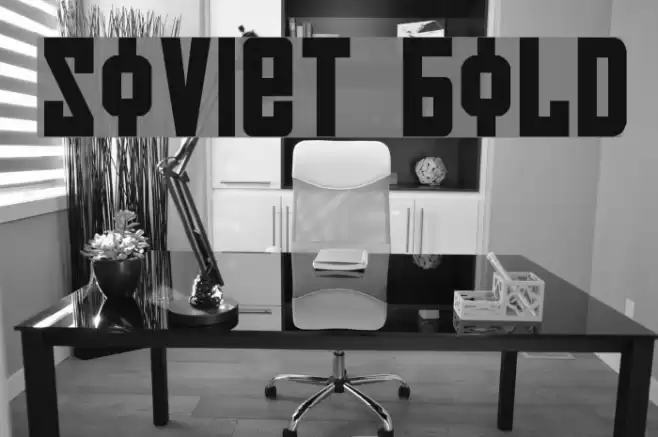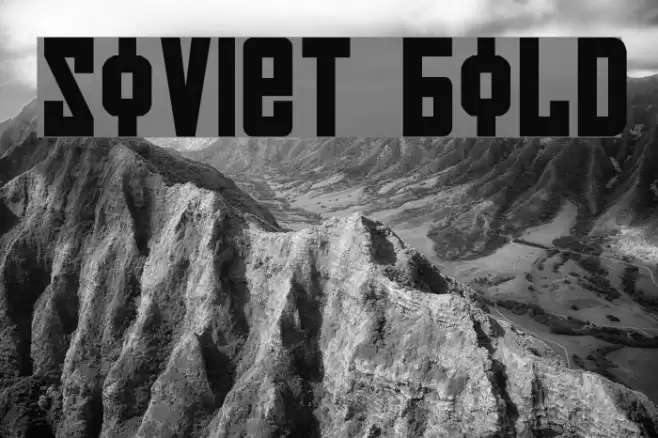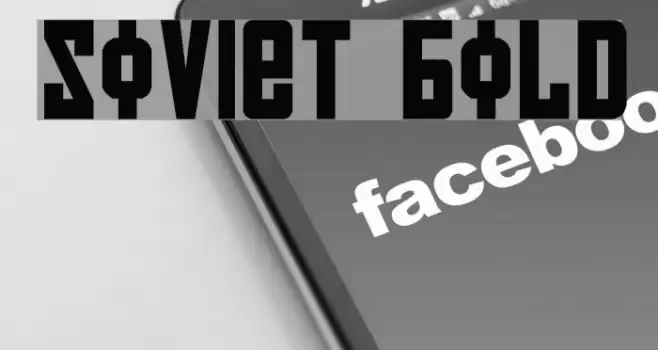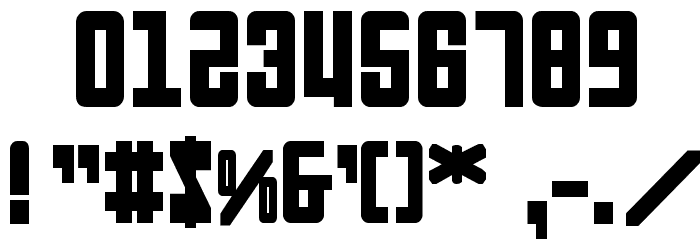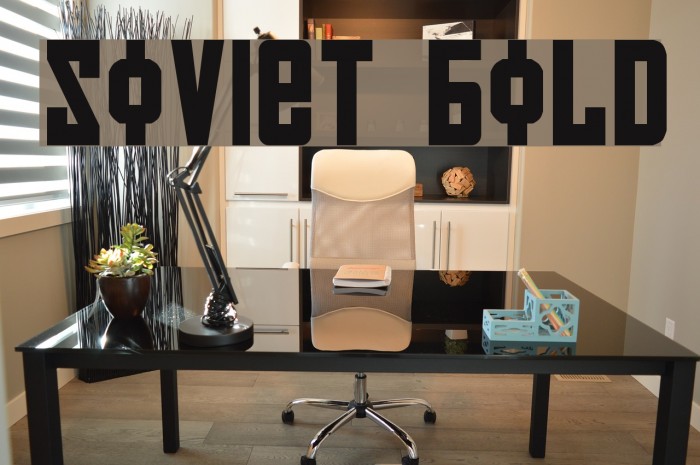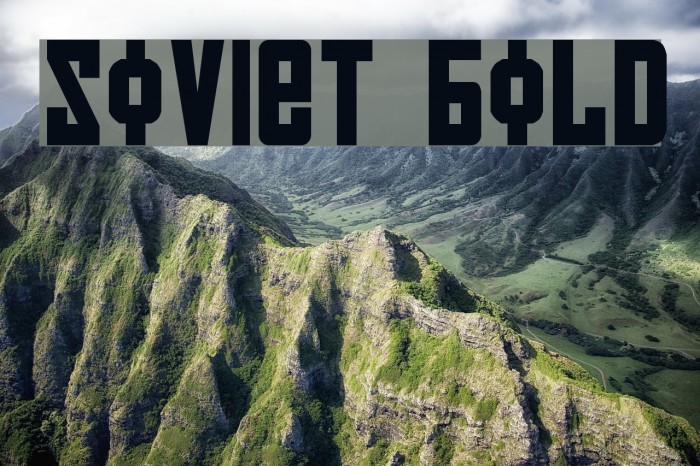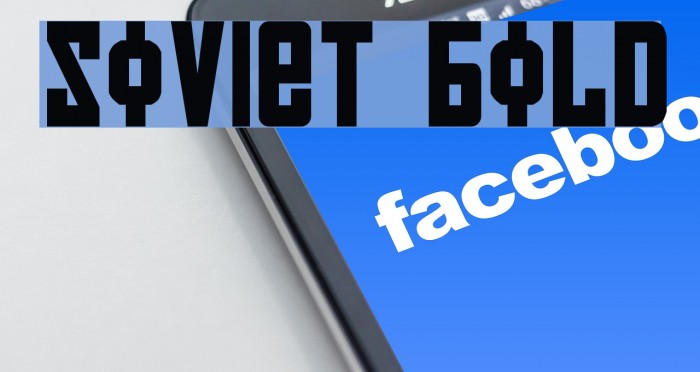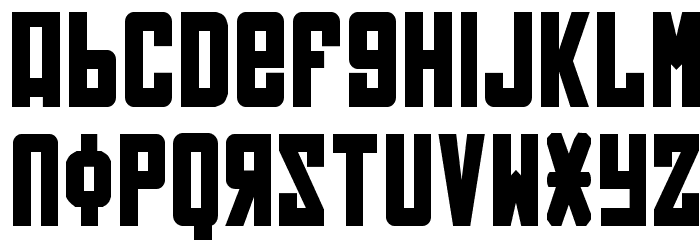
Soviet Bold Font
Soviet Bold Description
This font features a bold and striking design with a distinctly geometric and angular style. The characters are blocky and robust, with a uniform thickness that conveys strength and stability. The uppercase letters are particularly prominent, with sharp edges and a solid presence. The lowercase letters maintain the same boldness, ensuring consistency throughout the typeface. Numbers and special characters are equally bold, making them stand out effectively. This font's design is reminiscent of industrial and constructivist aesthetics, making it ideal for impactful and attention-grabbing text.
A bold, geometric font with a strong, industrial aesthetic from Uncategorized fonts.
- Proposed Projects: Ideal for posters, headlines, branding, and any project requiring a bold, impactful typeface.